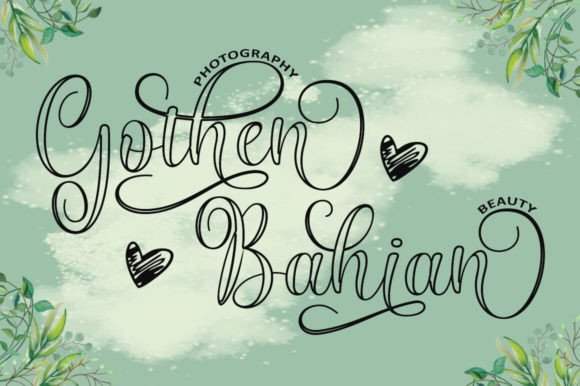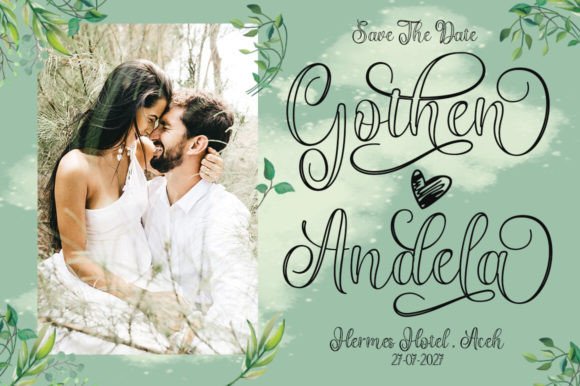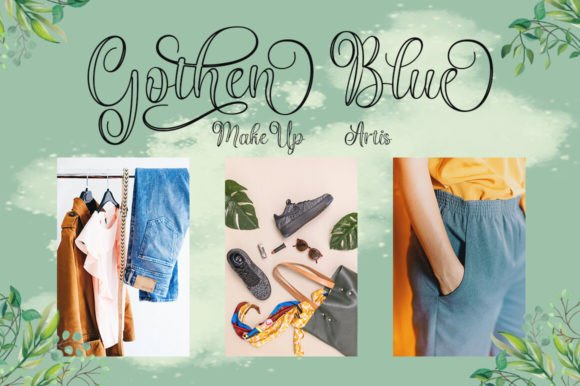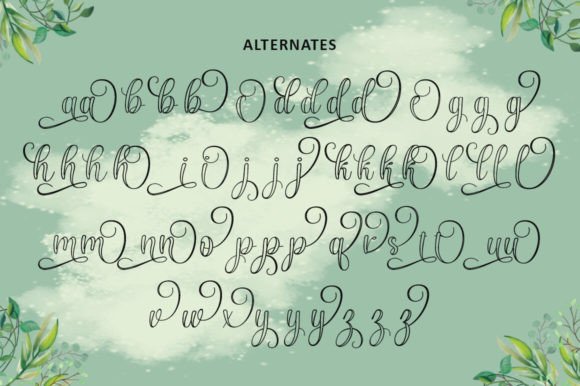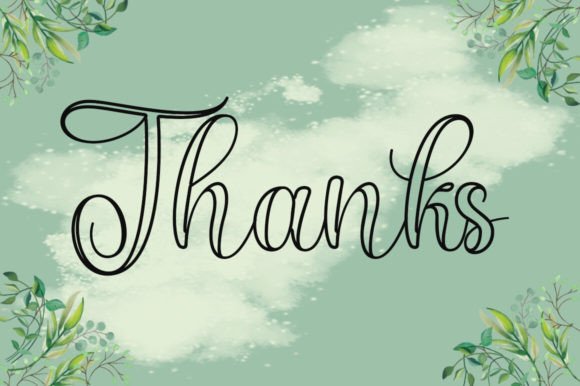
Hothen Outline Font – Free Download
Introduction to Hothen Outline Font
Hothen Outline is a sweet and friendly handwritten font.
The style is natural with a contemporary feel and perfect forms, inspired by timeless classic calligraphy The only limit is your imagination.
Key Features of Hothen Outline Font
Why Choose Hothen Outline Font?
Hothen Outline Font offers exceptional quality and versatility, making it a valuable addition to your design toolkit. Whether you’re creating for personal projects or commercial use, Hothen Outline Font delivers professional results.